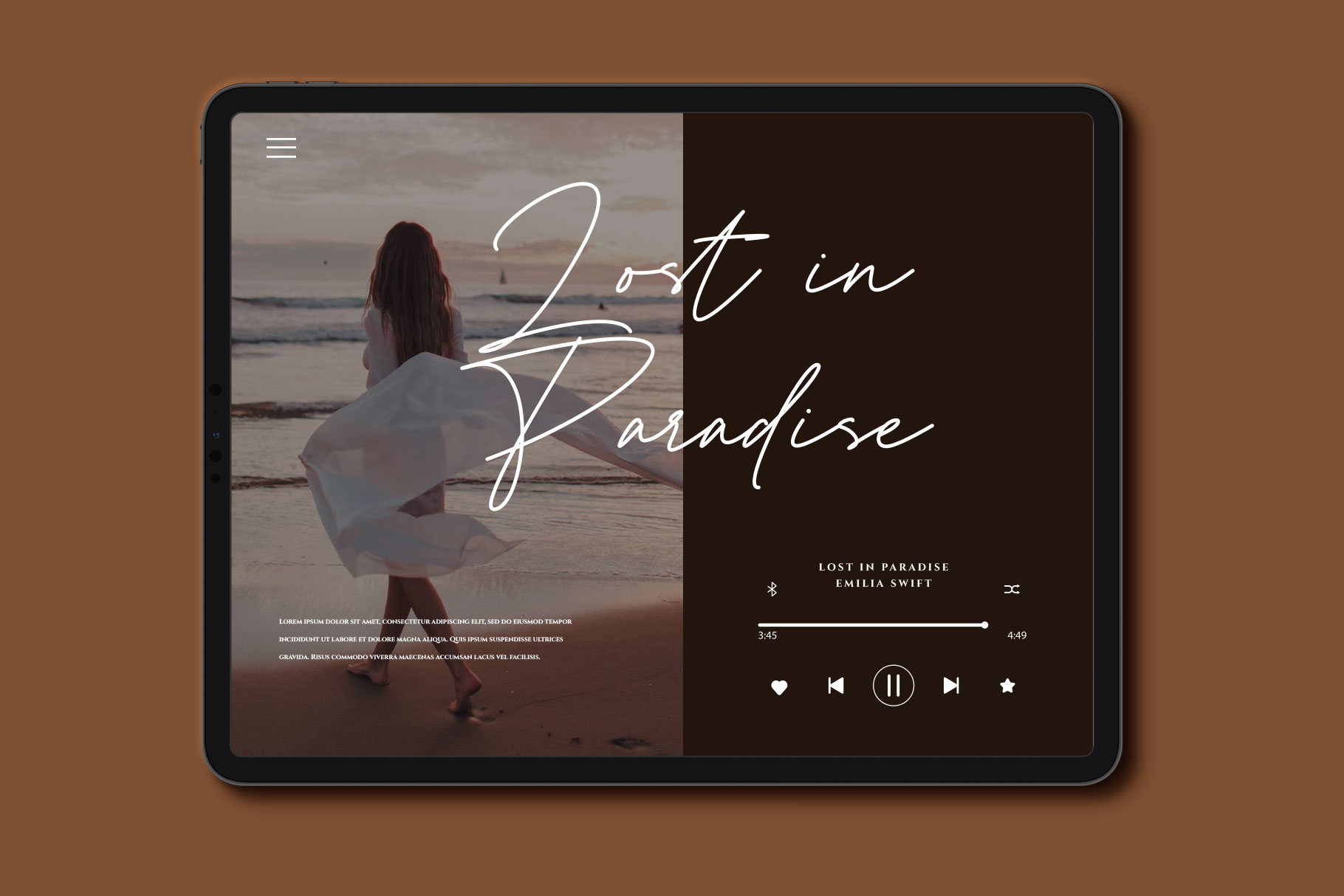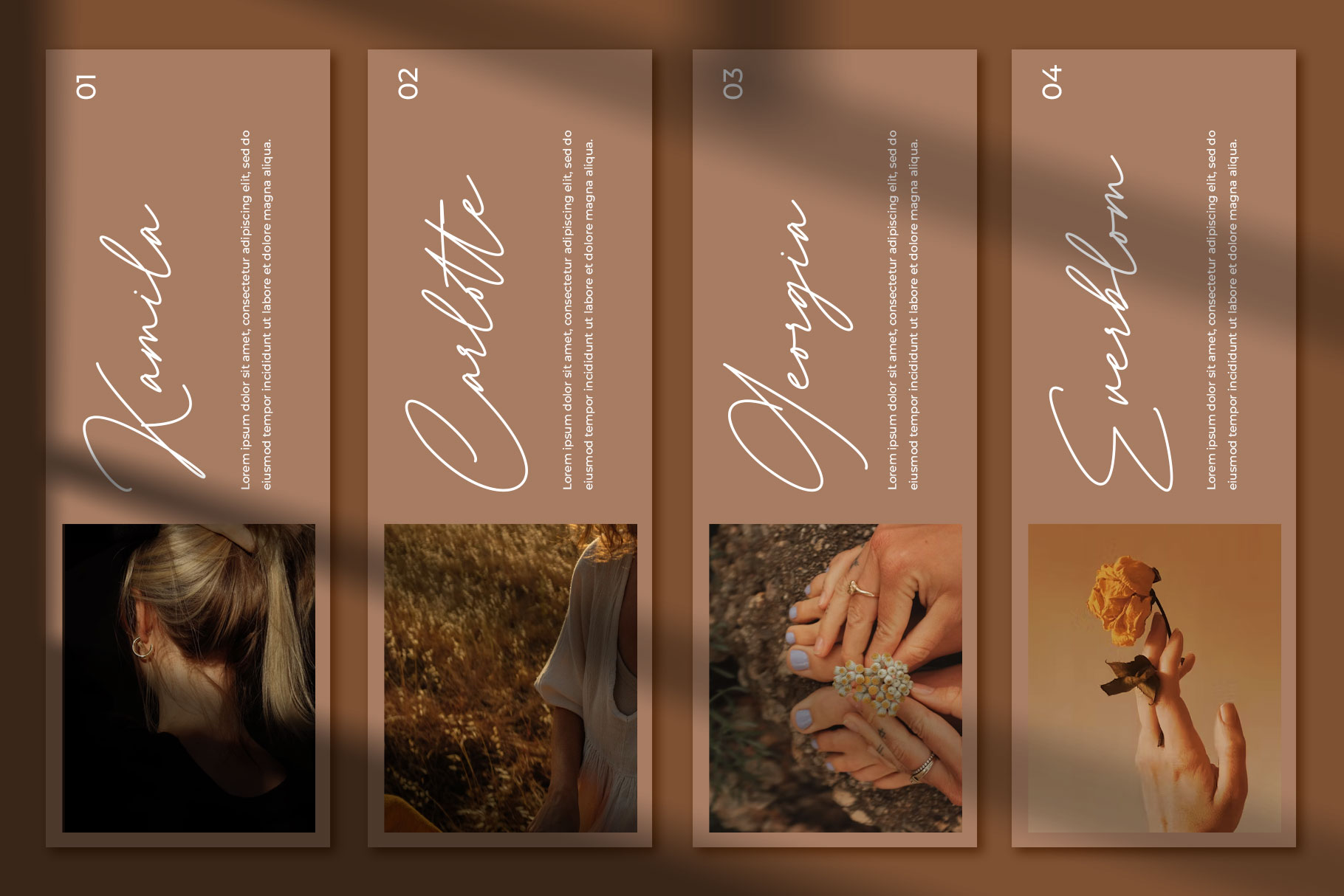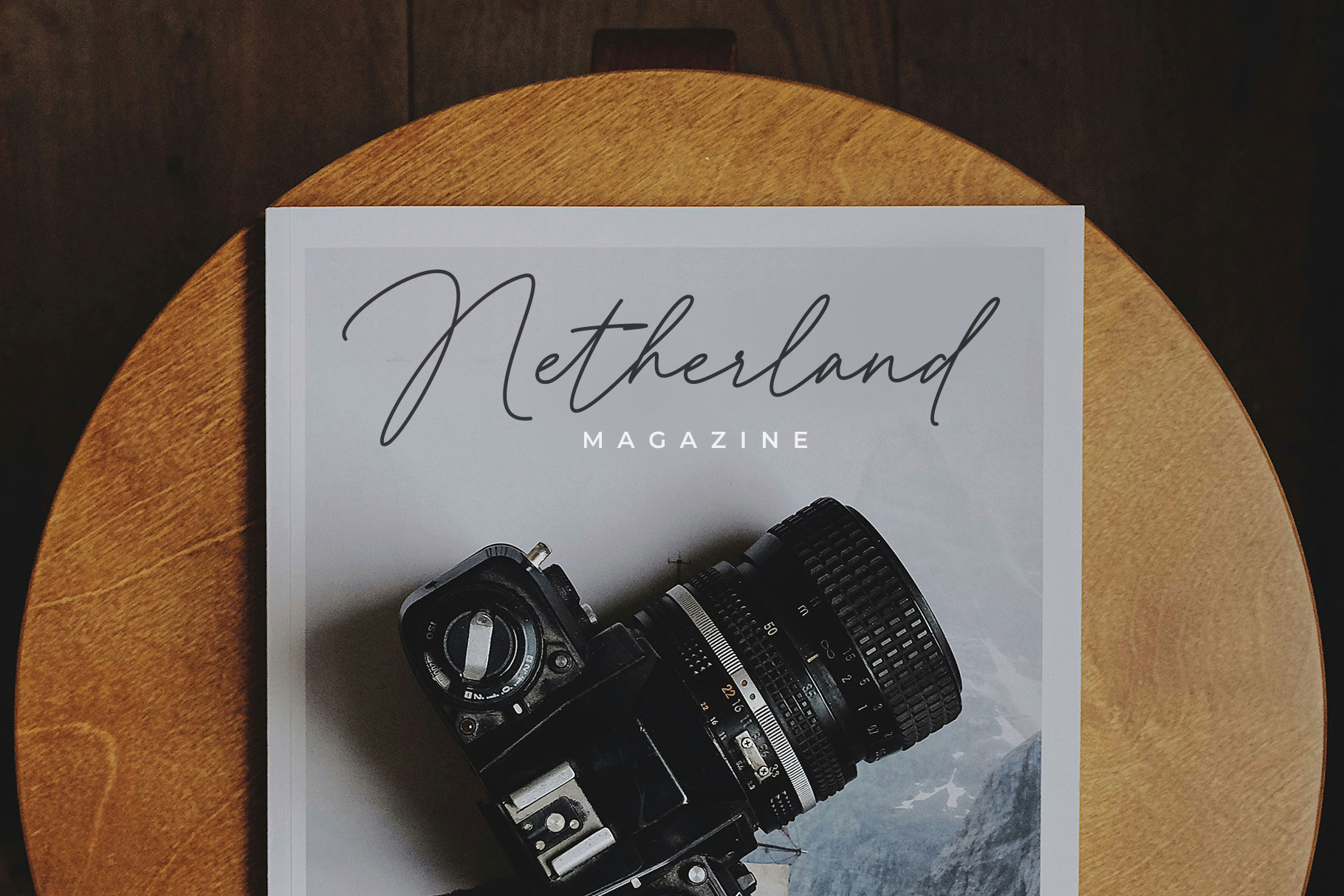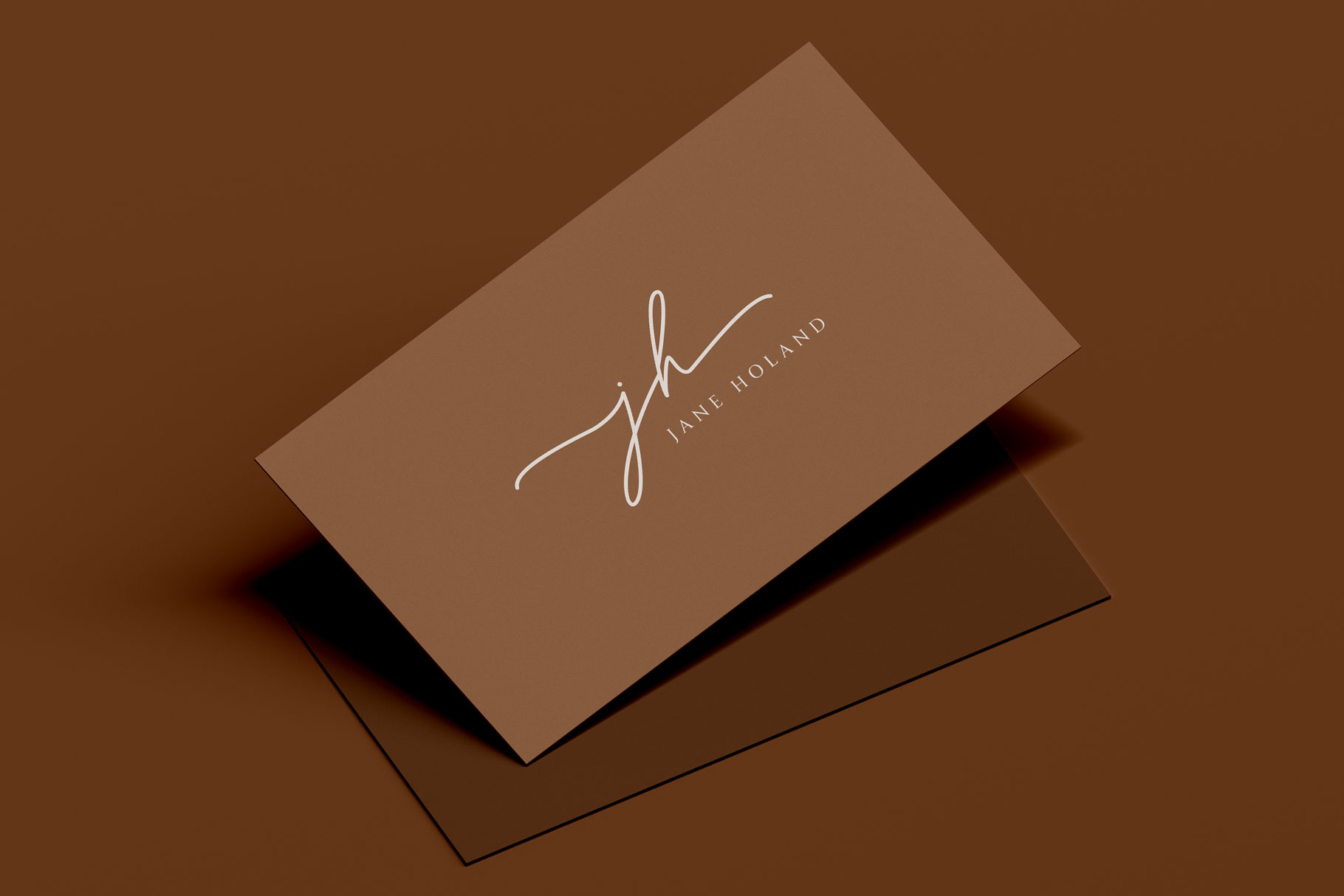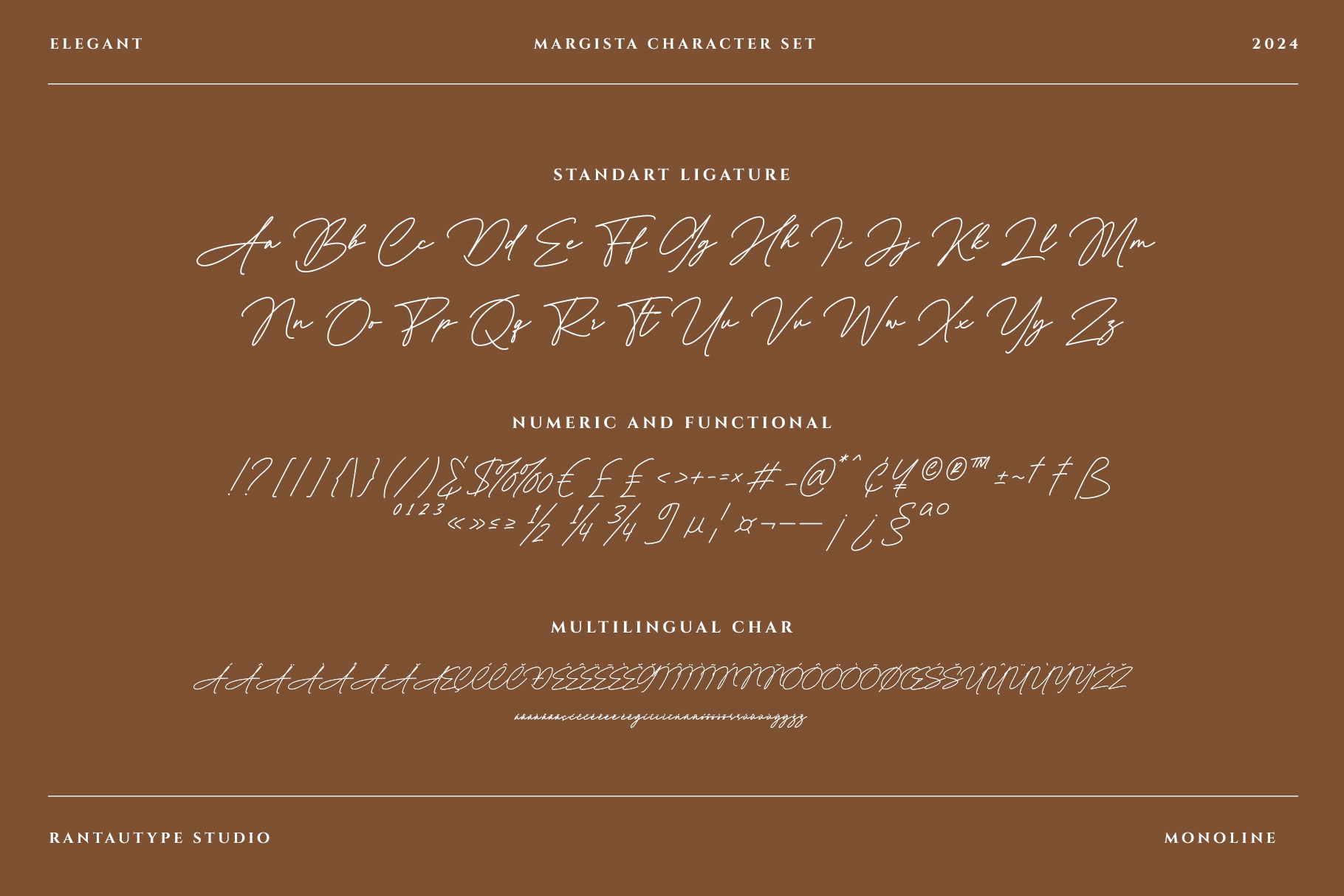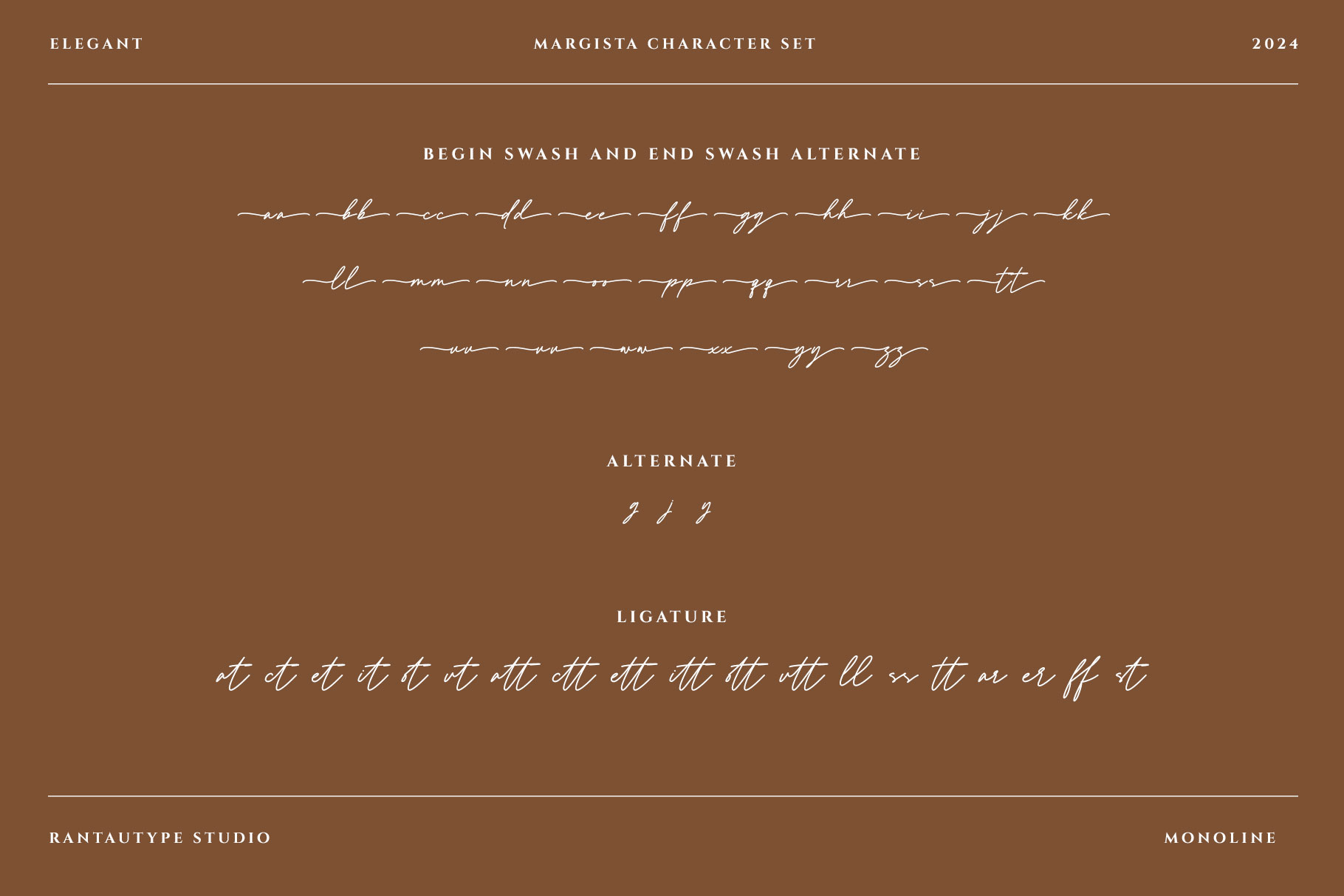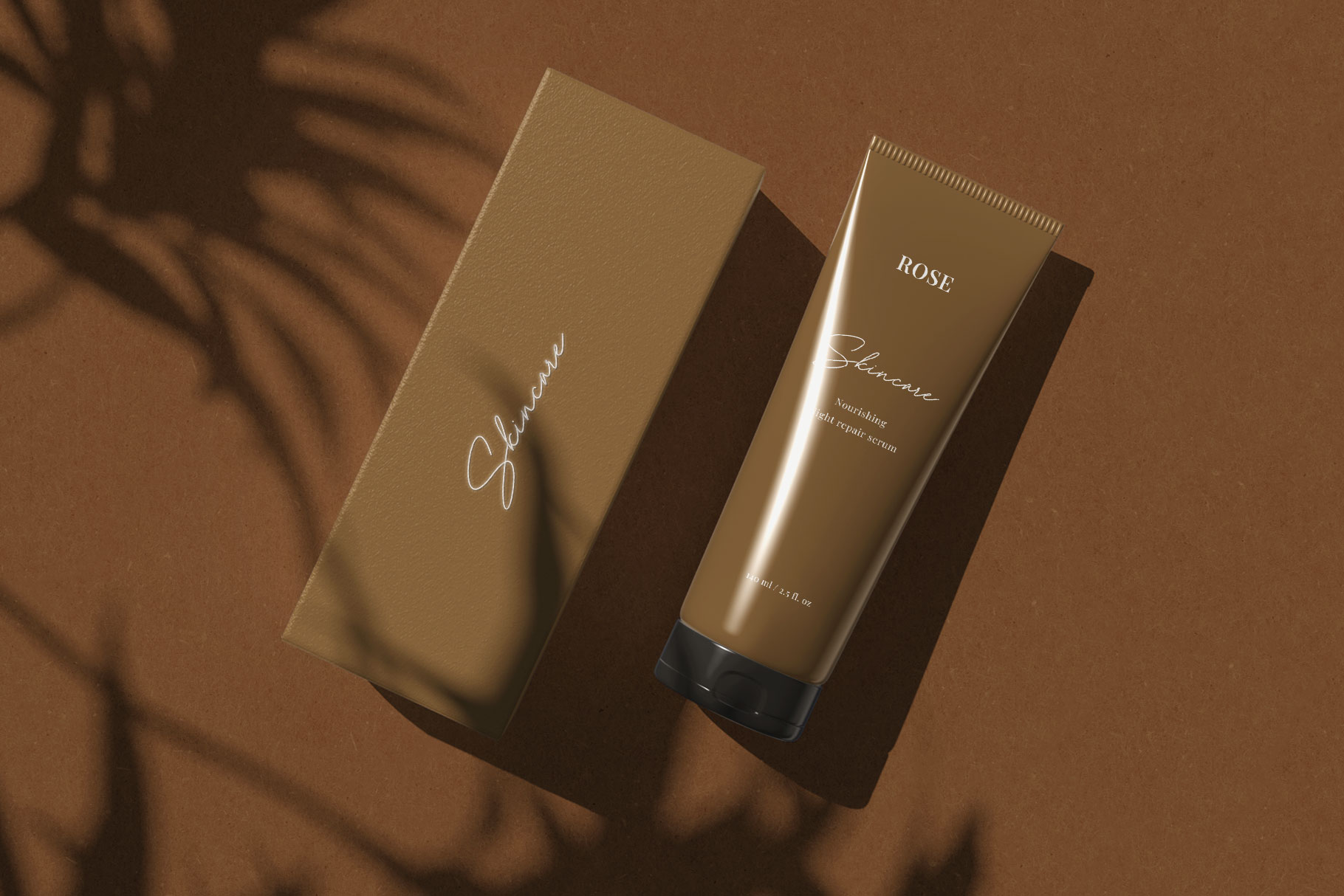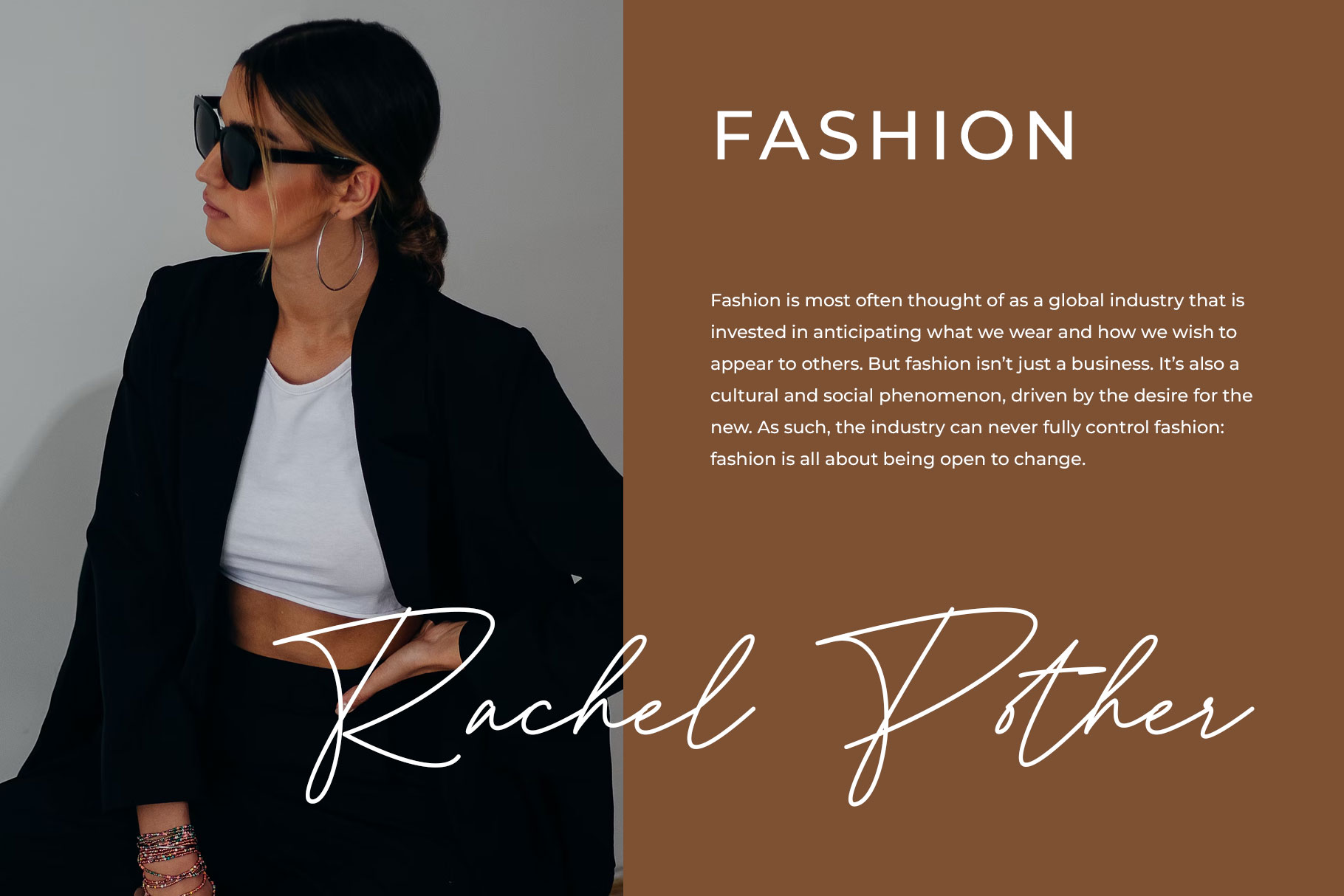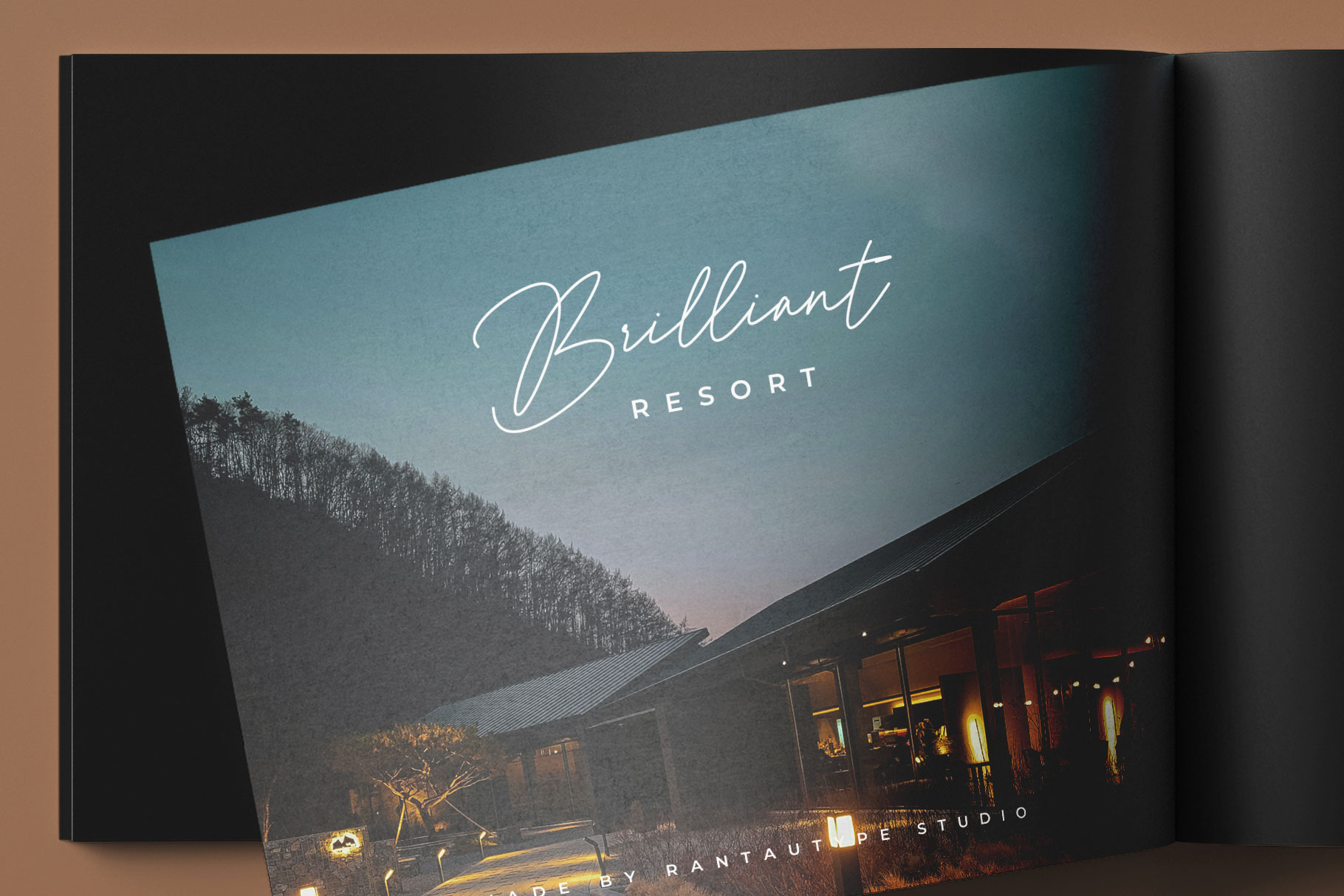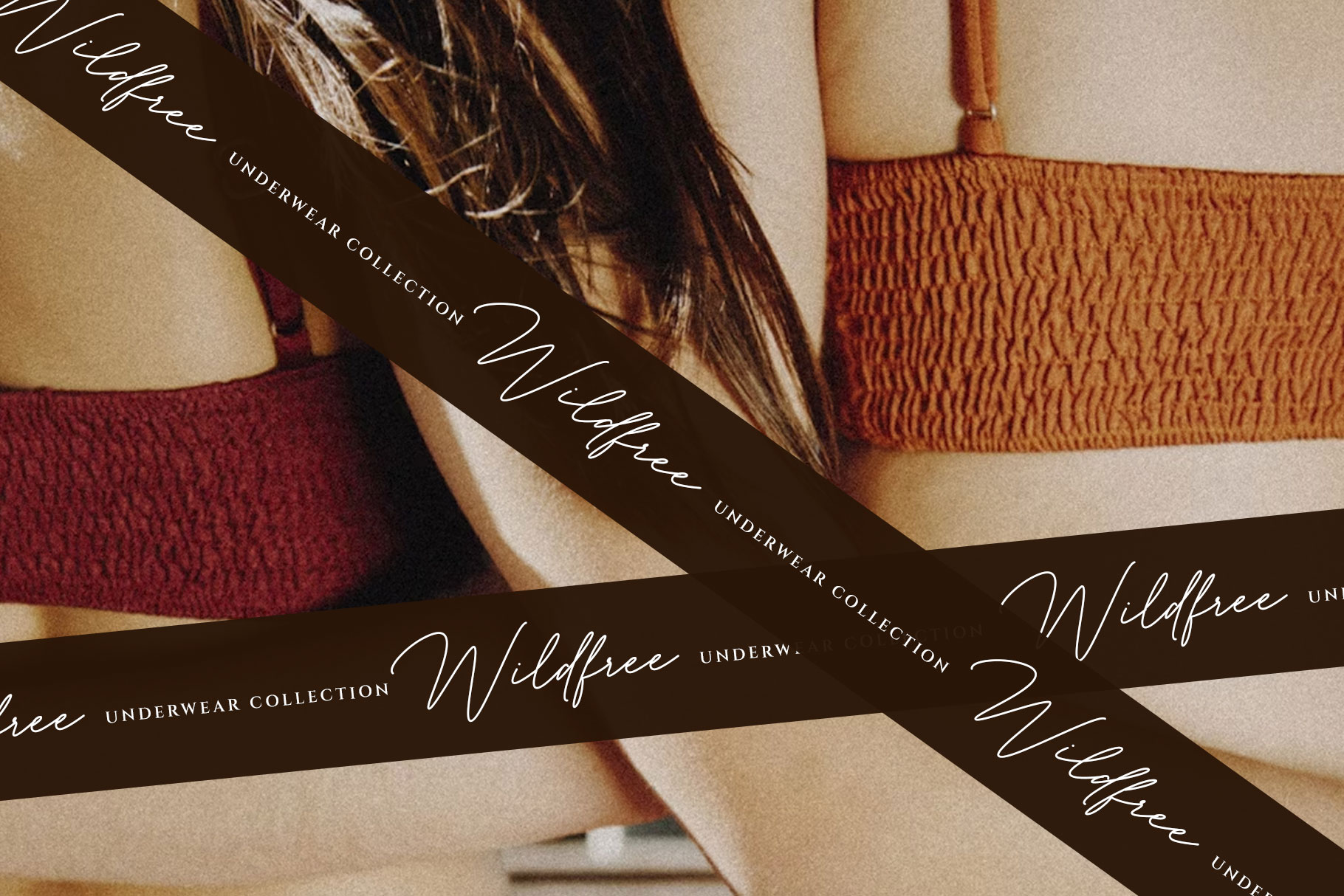
Margista Monoline Script Font
Margista is modern monoline handwritten font with natural style. Margista bring sophisticated of beautiful tail in beginning and end lower to make a various of design.
Margista is a perfectly choice for any creative endeavor, chic, lifestyle design such as logos, advertisements, watermark on photography, stationery, branding project, display and magazine, invitation, corporate brand, product design, label, business project and other project with handwritten taste.